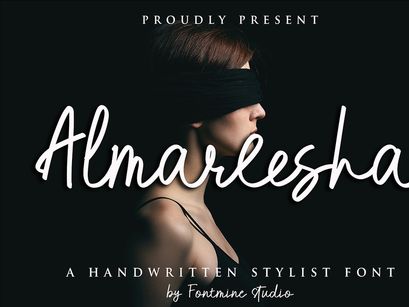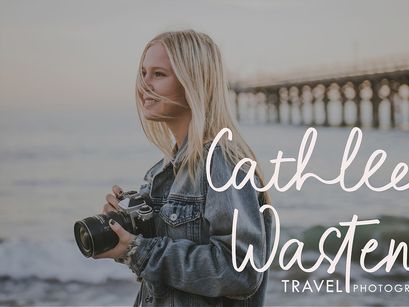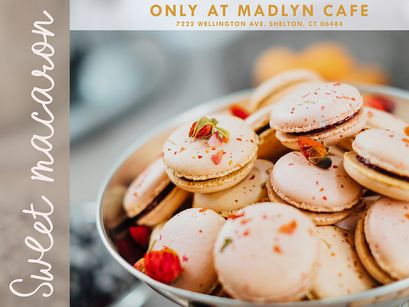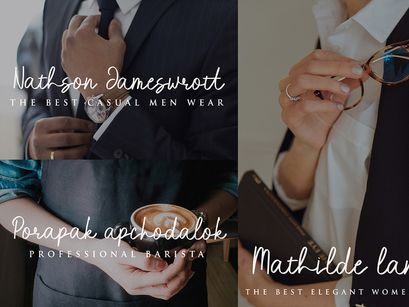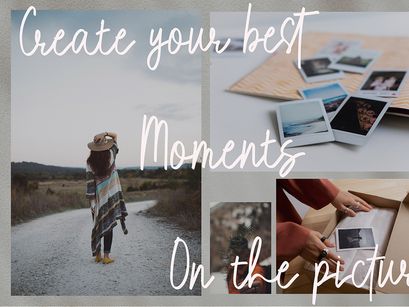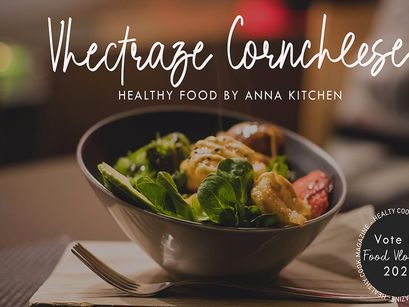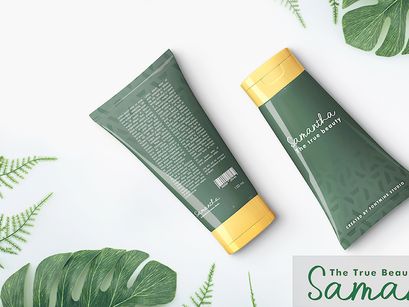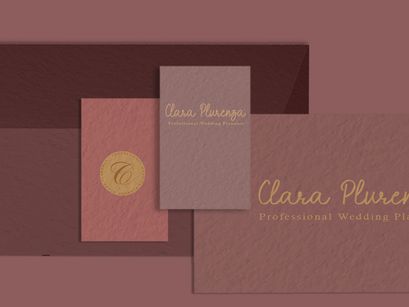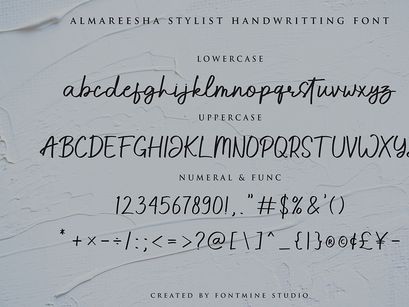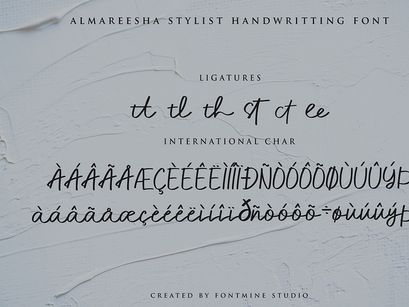
Almareesha - Stylist Signature Handwritting Font
Almareesha Regular
Almareesha is a casual script font, looking both sophisticated and classy.
It will look perfect on photography, watermark, social media posts, advertising, logos and branding, invitation, product designs and so much more.